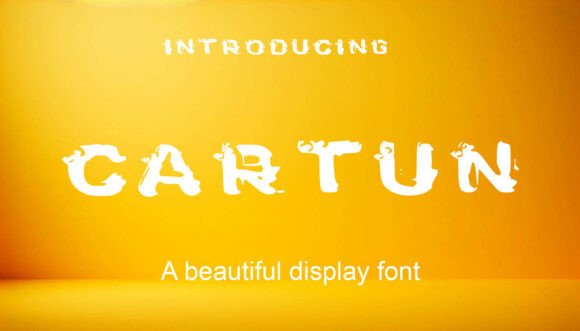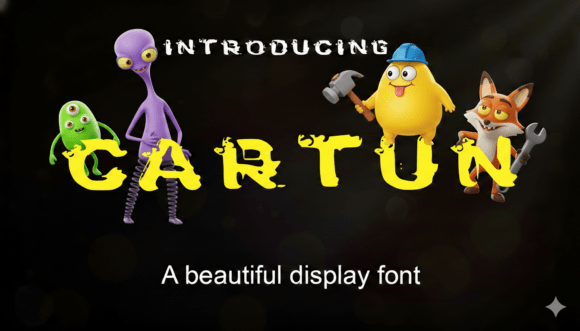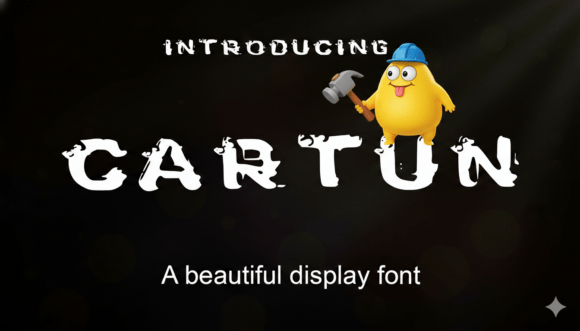
The Whimsical World of Cartun Font: A Designer’s Delight
I still remember the project that led me to discover Cartun Font. I was working on a children’s book design, and my client requested a font that would bring the story to life. I scoured the internet, tried out countless fonts, but nothing seemed quite right. That was until I stumbled upon Cartun Font. Its playful, handcrafted charm instantly won me over, and I knew I had found the perfect fit. In this article, I’ll share my experience with Cartun Font, its unique features, and how to make the most of it in your designs.
An Honest Review of Cartun Font
- ✅ Unique and expressive letterforms: Cartun Font’s handcrafted, slightly irregular letterforms evoke a sense of fun and lightheartedness, making it perfect for designs aimed at children, comic books, or casual branding.
- ✅ Distictive personality: The jagged edges and unique character shapes give Cartun Font a distinctive personality that truly stands out.
- ✅ Easy to read: Despite its playful nature, Cartun Font remains surprisingly legible, even at smaller sizes.
- ⚠️ Limited use in formal designs: Cartun Font’s playful nature makes it less suitable for formal or professional designs, such as business reports or corporate branding.
- ⚠️ Some characters may require manual kerning: As with any font, some characters may require manual kerning to achieve optimal results.
The Backstory of Cartun Font
Cartun Font was designed with the intention of capturing the whimsical spirit of cartoons. Its creator, a passionate typographer, drew inspiration from classic cartoons and comics, aiming to create a font that would bring a sense of fun and playfulness to designs. The result is a font that’s equal parts expressive, energetic, and delightful.
| Font Name | Cartun Font |
| Author | pavel |
| What makes Cartun Font unique? | Cartun Font’s handcrafted, slightly irregular letterforms and jagged edges give it a distinctive personality that’s perfect for designs that need a touch of animated charm. |
| Is Cartun Font suitable for formal designs? | No, Cartun Font’s playful nature makes it less suitable for formal or professional designs, such as business reports or corporate branding. |
| Does Cartun Font support OpenType features? | Yes, Cartun Font supports OpenType features, including glyphs and stylistic alternates, which can be accessed in compatible design software. |